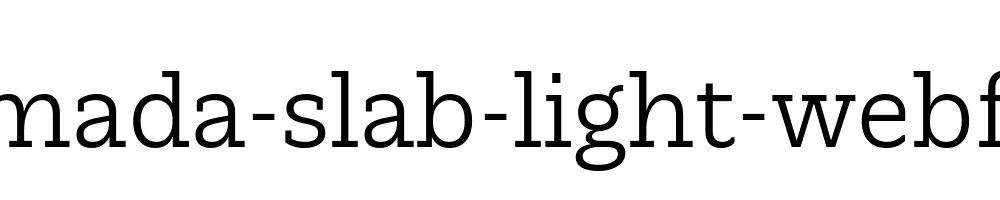
About nomada-slab-light-webfont
The font weight name nomada-slab-light-webfont is a sleek and modern typeface with clean lines and subtle curves. The open counters and sharp apexes give it a dynamic and expressive feel, making it perfect for creative projects and branding. The sturdy stems and subtle bracketing add a touch of elegance, while the closed counters and strong serifs give it a serious and professional tone. Its neutral design makes it versatile for a variety of uses, whether you need something bold and attention-grabbing or understated and refined. The font’s warm undertones make it inviting and friendly, while the technical precision of its construction gives it a hint of sophistication. Overall, nomada-slab-light-webfont strikes the perfect balance between classic charm and progressive design, making it a versatile choice for any project.